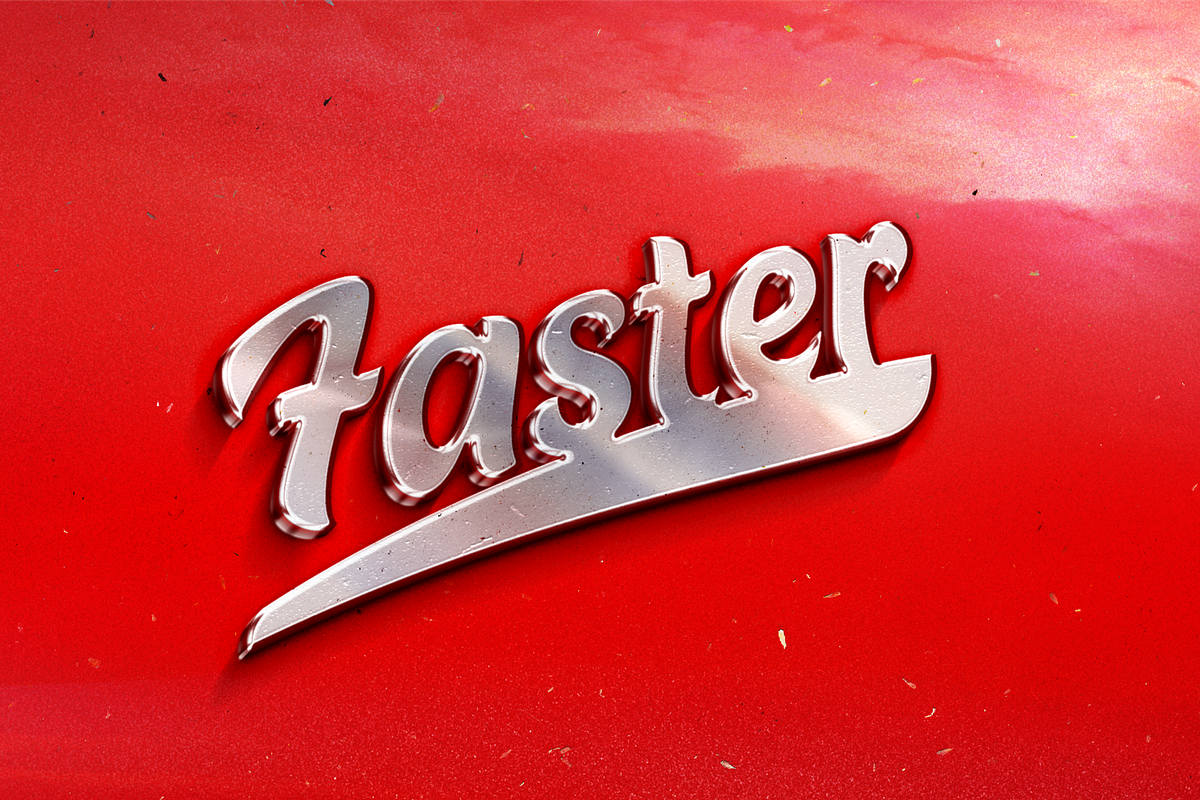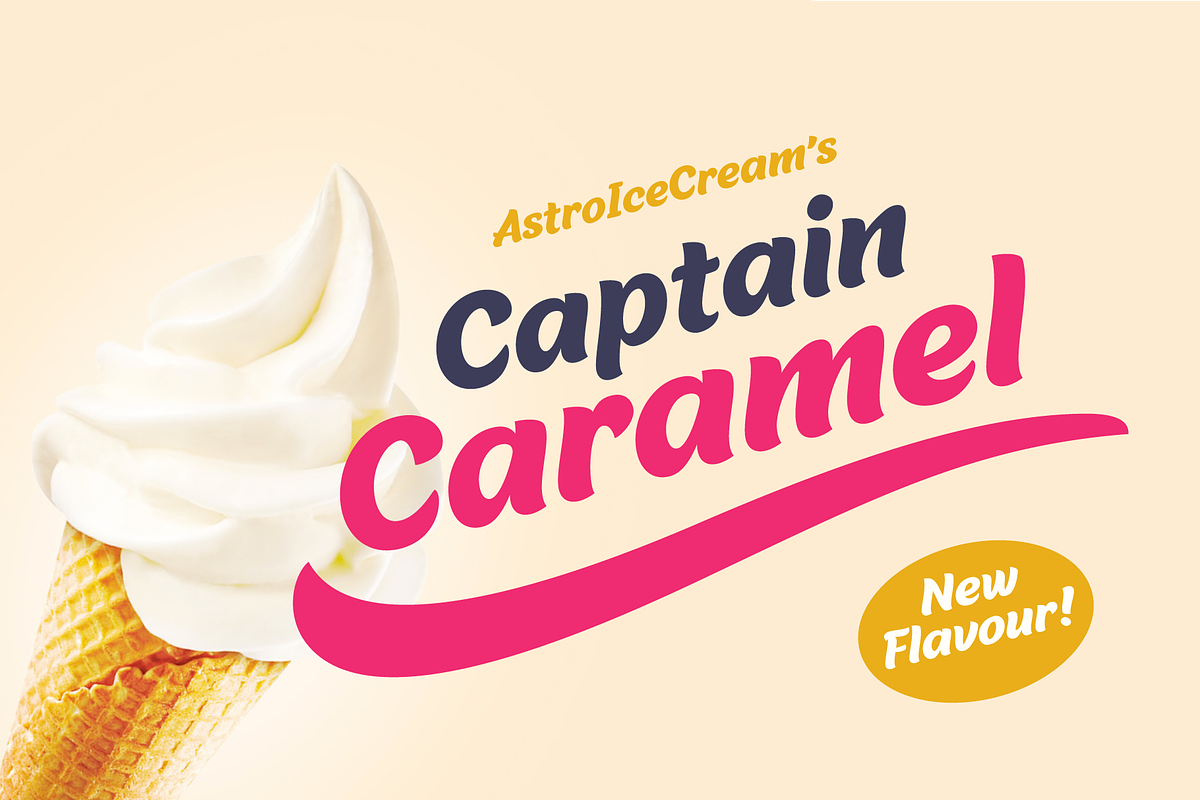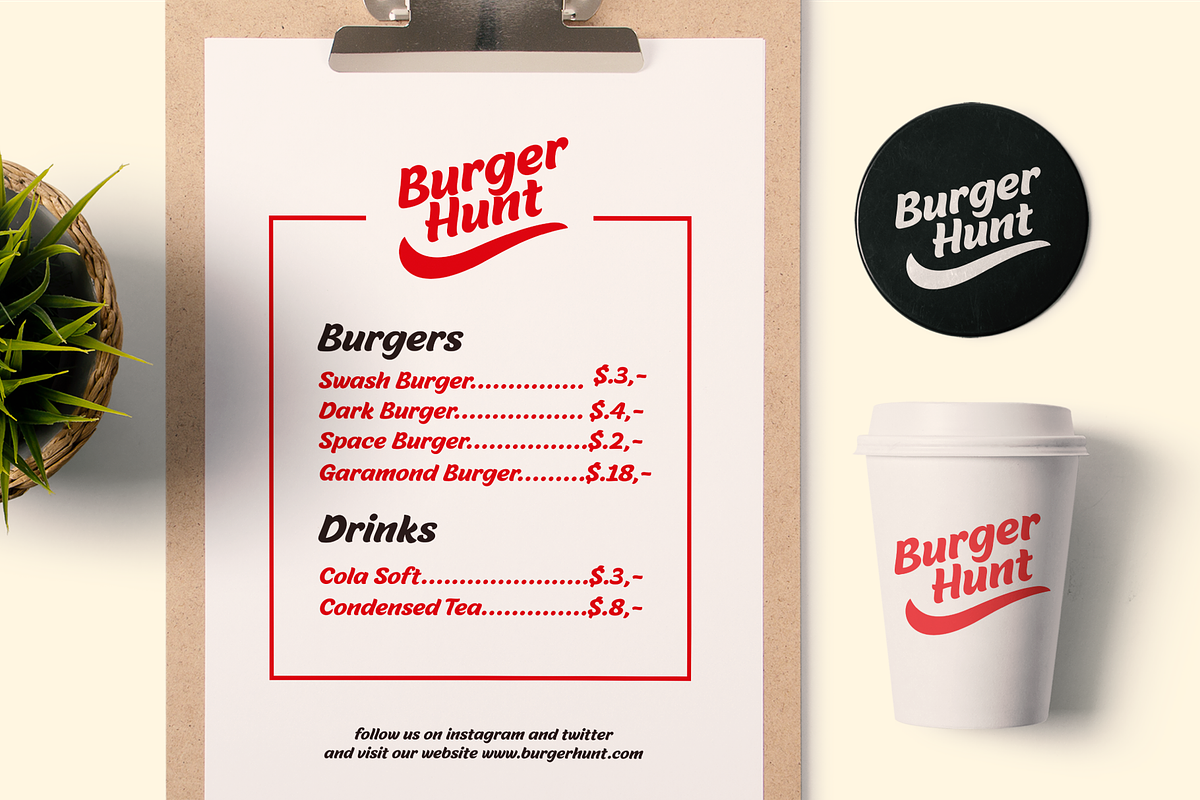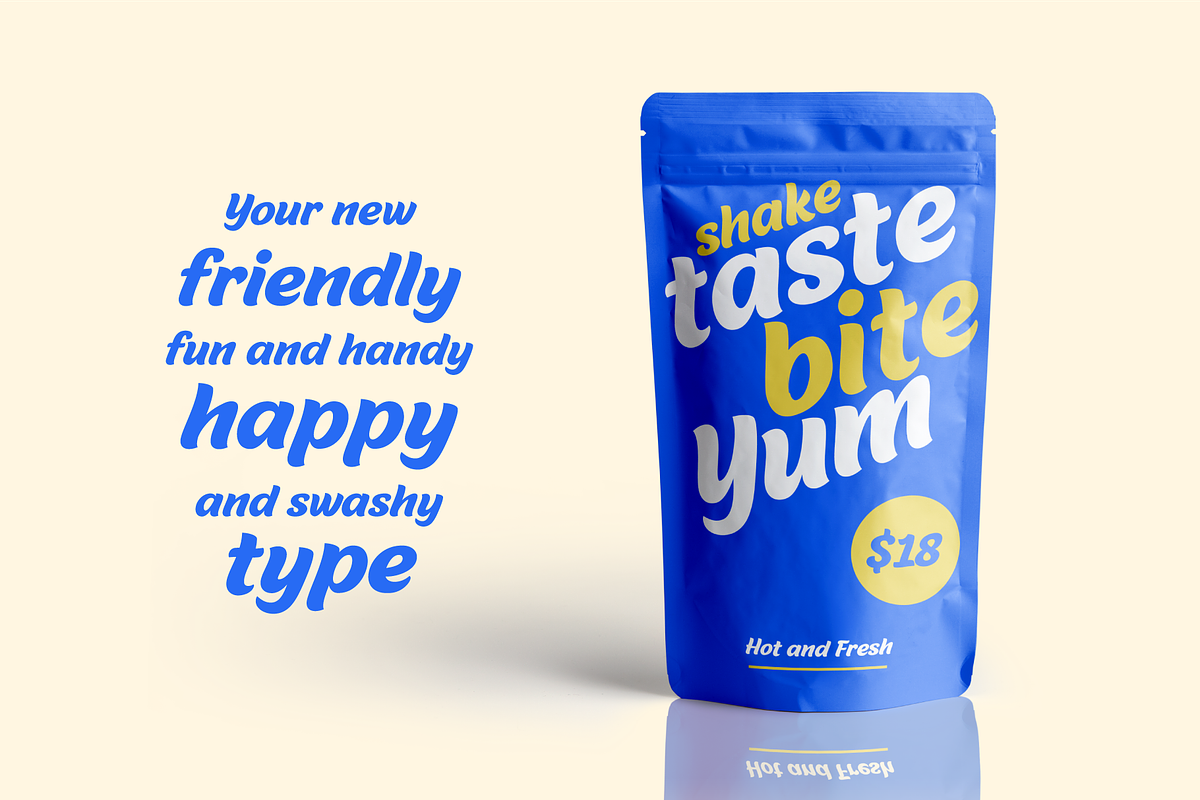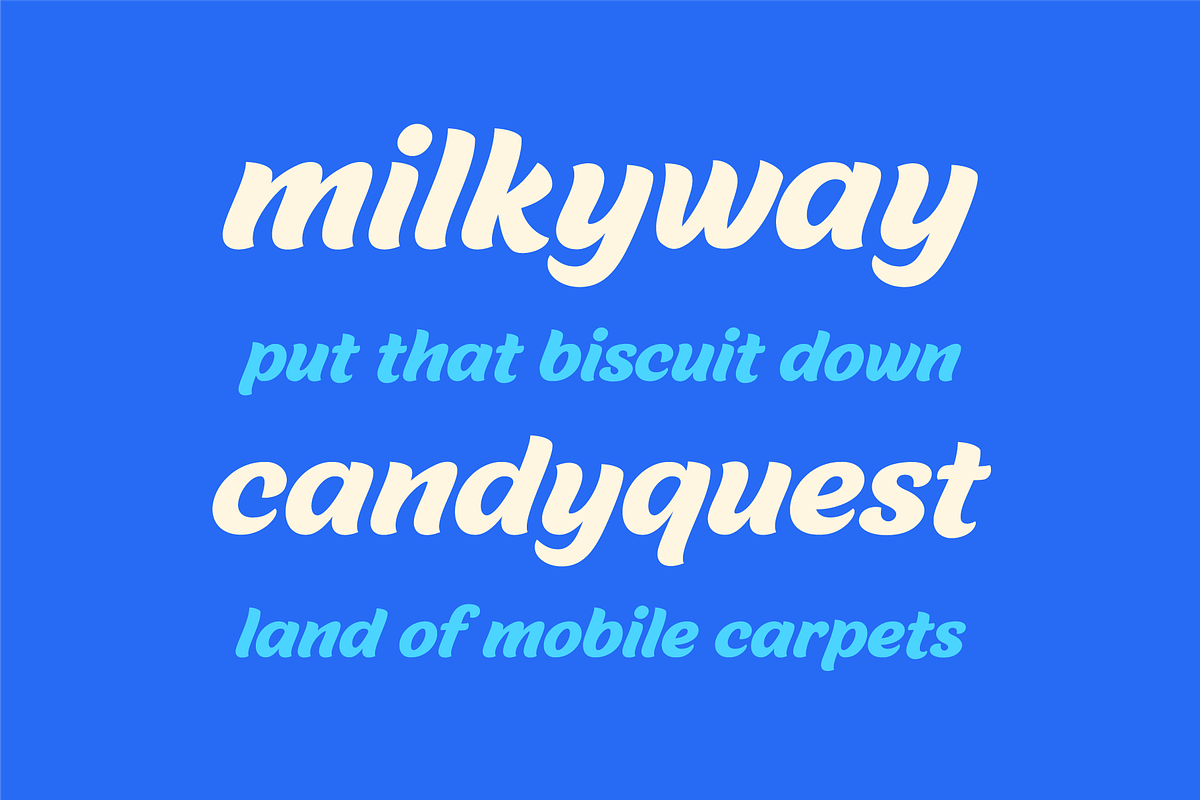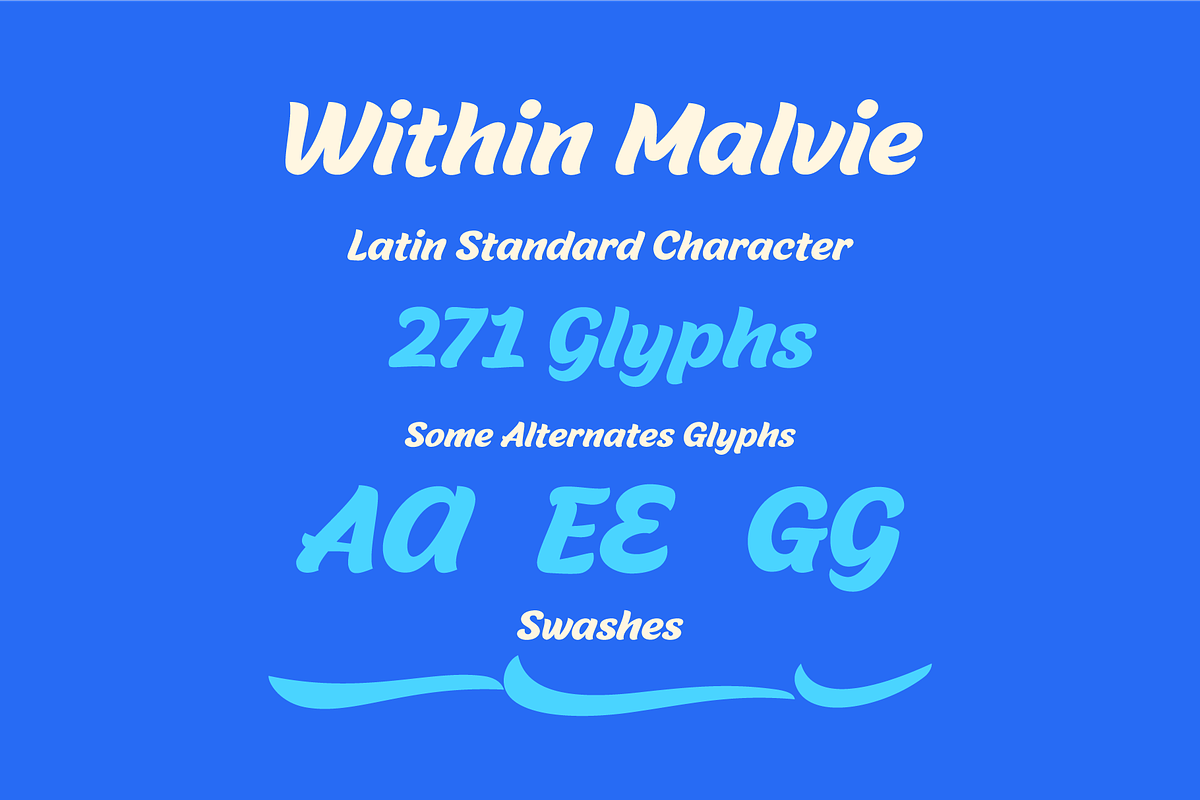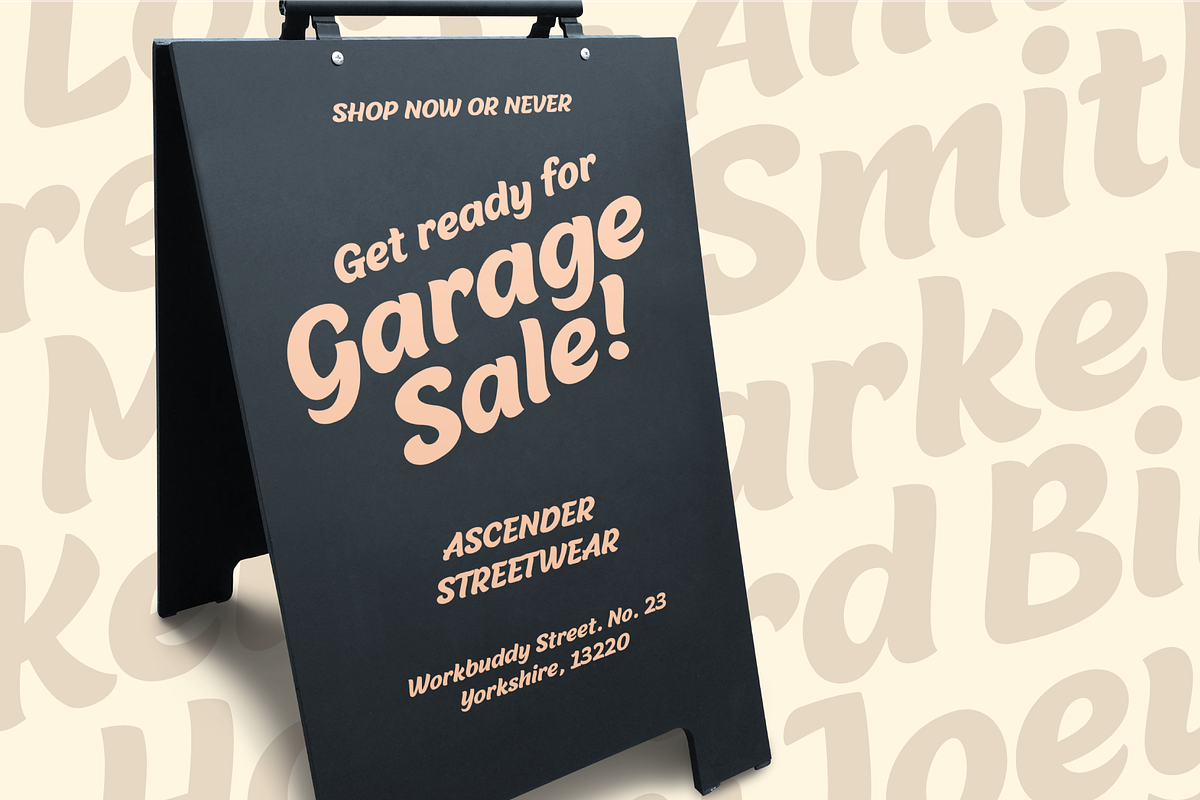
Malvie Fun and Swashy Font
Malvie is casual, groovy and friendly font. Made for titling and products, branding, packaging, display, signage and other fit-for-bold medium. Each glyphs shown dynamic curves, especially with the stems which is personalized by heavy swinging stroke.
Its contain 270 glyphs with latin standard character set and two opentype features; Stylistic Alternates and standard Ligatures also extra swashes.
This font has been used by lot of brands from large enterprise.
Why Malvie Fun and Swashy Font is worth a look
Malvie Fun and Swashy Font by Eko Bimantara fits naturally into Branding, posters, packaging, typography.